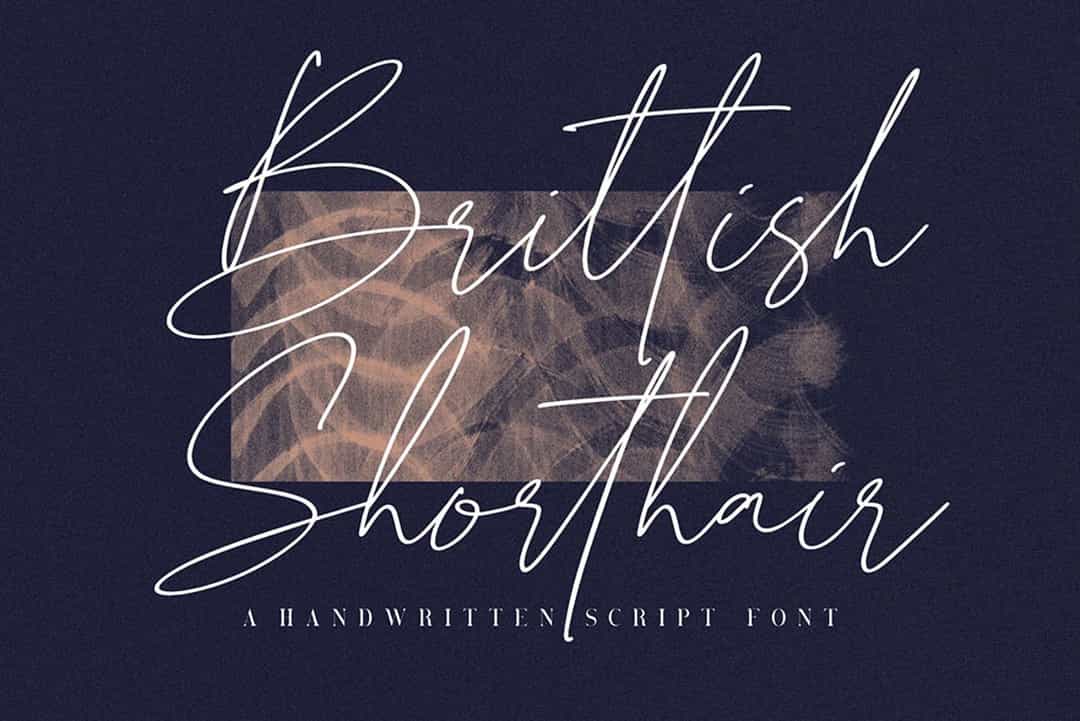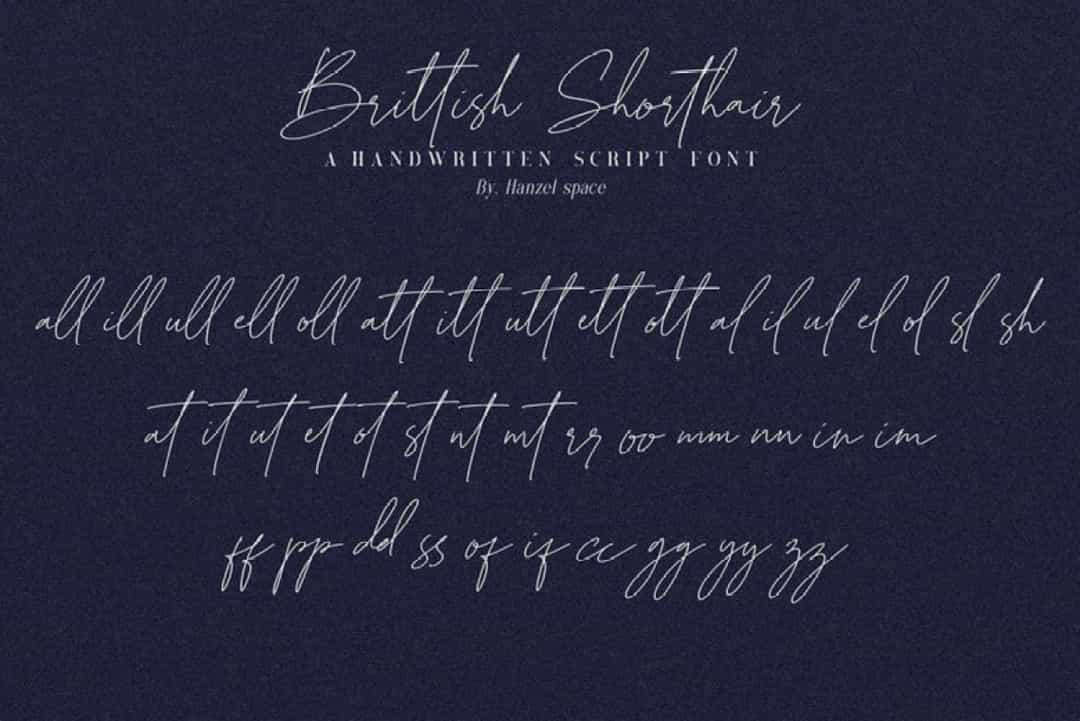
Brittish Sorthair is an elegant signature style script that has curves and the feel of ink flow in it. Brittish Shorthair Script can be a perfect font to use for logos, companies’ names, weddings, and any social media posts.